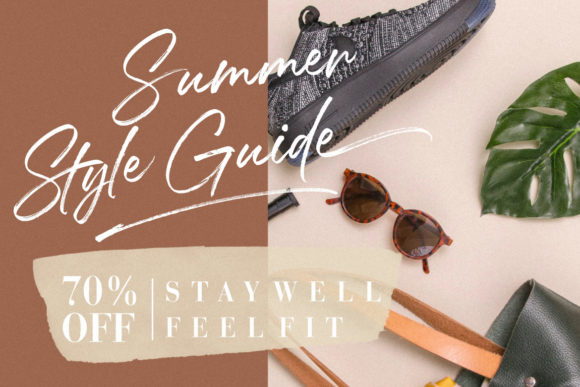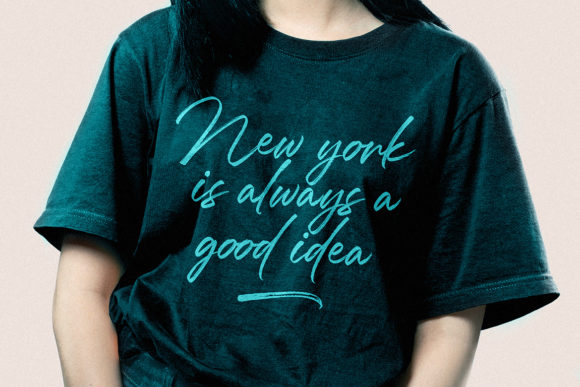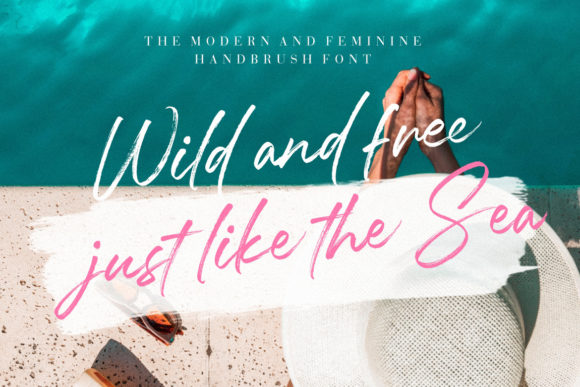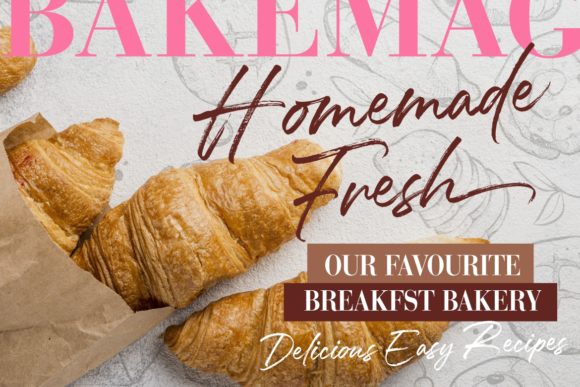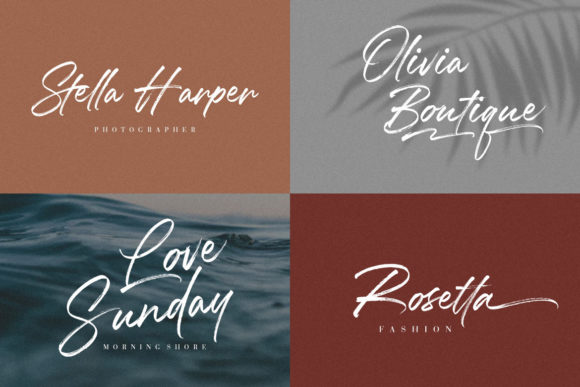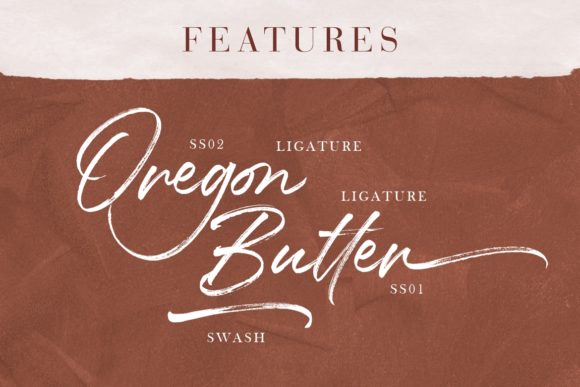
Introduction to Mallorie Font
Mallorie is a spectacular handwritten font made in a brush style.
Make your designs look more real and attractive, use it together with your creative ideas so that they will produce amazing designs This font is PUA encoded which means you can access all of the glyphs and swashes with ease.
Mallorie Font offers exceptional quality and versatility, making it a valuable addition to your design toolkit. Whether you’re creating for personal projects or commercial use, Mallorie Font delivers professional results.